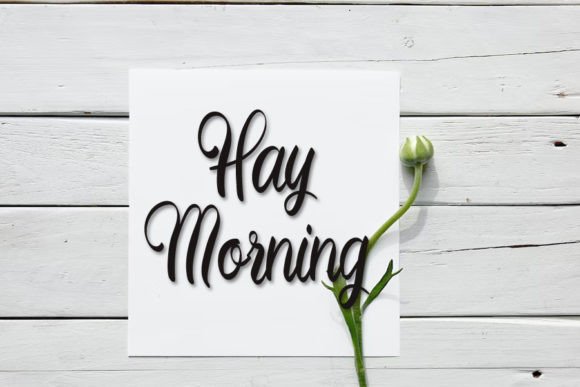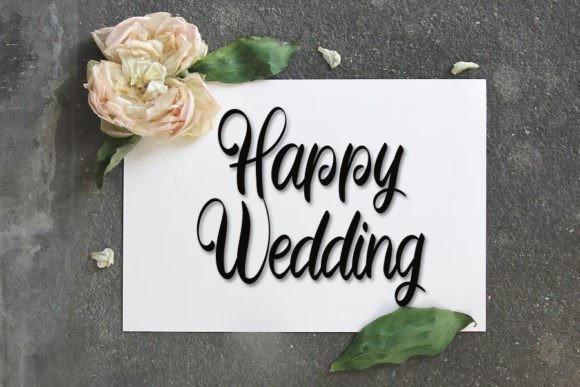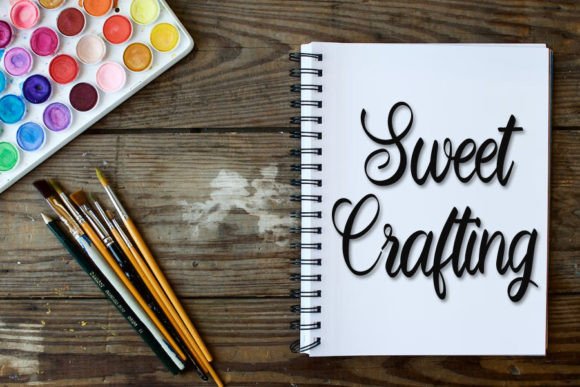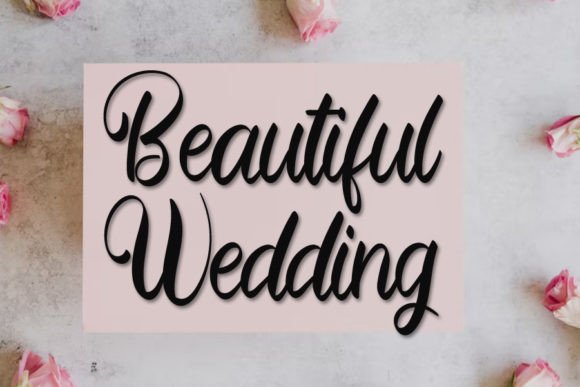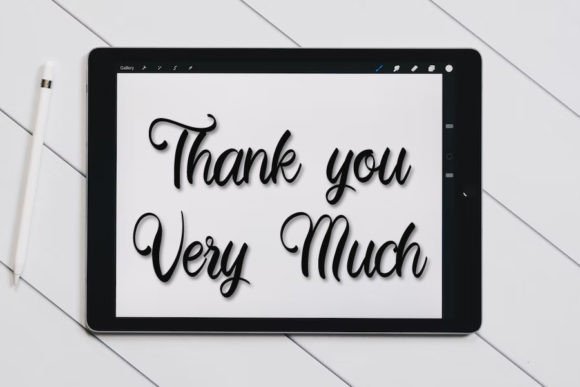
Dribble Font: The Fun and Casual Handwritten Script Font You Need
Are you tired of using the same old fonts in your design projects? Do you want to add a touch of personality and whimsy to your creations? Look no further than the Dribble font! This fun and casual handwritten script font is perfect for designers and crafters who want to add a unique and playful touch to their work.
What is Dribble Font?
Dribble font is a type of handwritten script font that is designed to look like it was written with a pen or pencil. It’s a casual and relaxed font that has a friendly and approachable feel to it. The font is made up of flowing lines and curves, which give it a sense of movement and energy.
Characteristics of Dribble Font
So, what makes Dribble font so special? Here are a few of its key characteristics:
- Handwritten look: Dribble font has a distinctly handwritten look, which makes it perfect for designs that need a personal touch.
- Fun and playful: This font is designed to be fun and playful, making it perfect for designs that need to appeal to a younger audience.
- Easy to read: Despite its casual look, Dribble font is easy to read, even at small sizes.
- Versatile: Dribble font can be used for a wide range of design projects, from posters and flyers to social media graphics and website headers.
Why Use Dribble Font?
So, why should you use Dribble font in your design projects? Here are a few reasons:
- Adds personality: Dribble font adds a touch of personality and whimsy to your designs, which can help them stand out from the crowd.
- Creates a friendly tone: The casual and relaxed look of Dribble font creates a friendly tone that is perfect for designs that need to appeal to a wide audience.
How to Use Dribble Font
Using Dribble font is easy! Here are a few tips:
- Pair it with other fonts: Dribble font looks great when paired with other fonts, such as sans serif fonts or serif fonts.
- Use it for headings: Dribble font is perfect for headings and titles, where its playful and fun look can really shine.
- Experiment with colors: Dribble font looks great in a wide range of colors, from bright and bold to pastel and subtle.
In conclusion, Dribble font is a fun and casual handwritten script font that is perfect for designers and crafters who want to add a unique and playful touch to their work. With its friendly and approachable look, Dribble font is sure to become a favorite in your design toolkit. So why not give it a try and see the results for yourself?
Dribble is a fun and casual handwritten script font. Add it confidently to your projects and you will love the results!